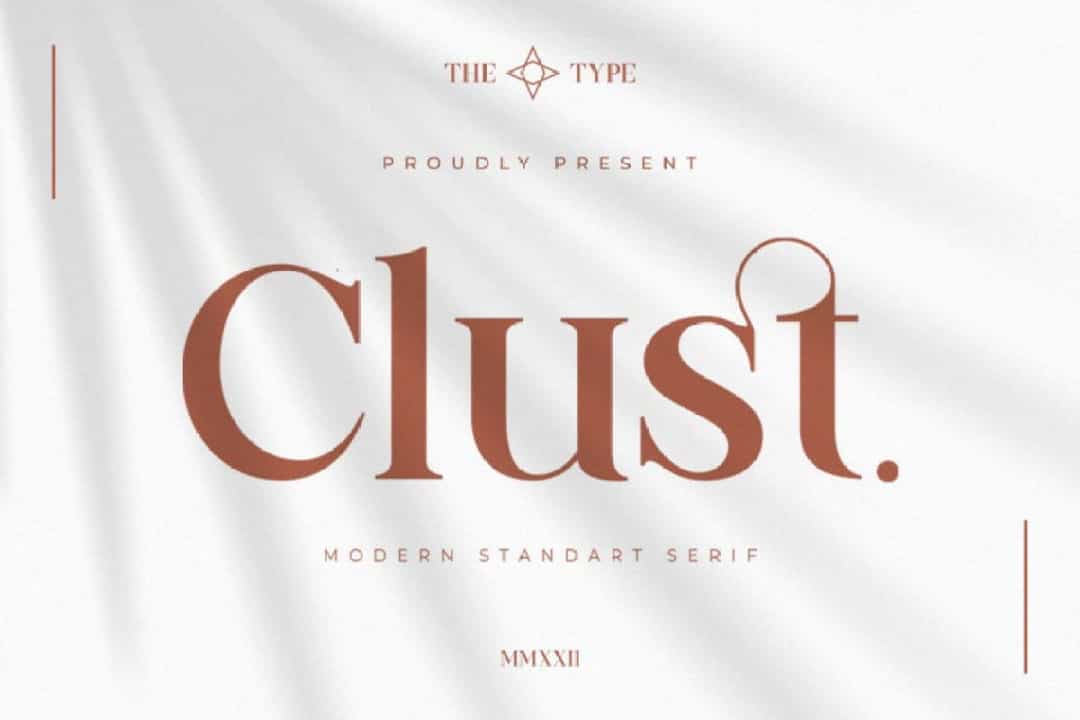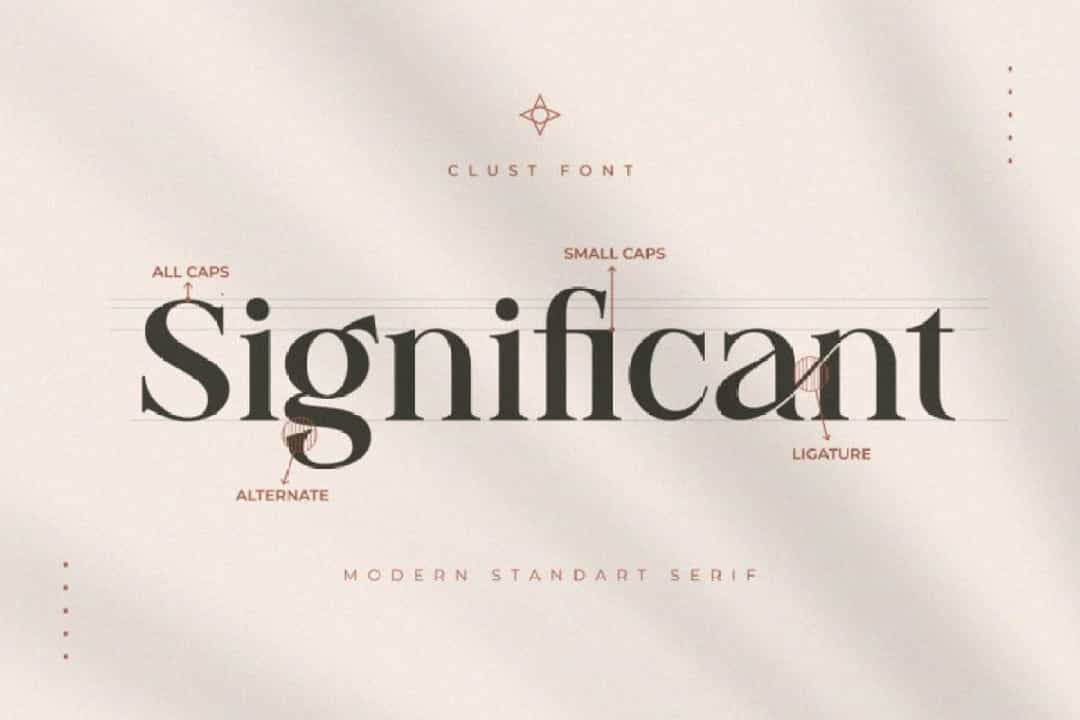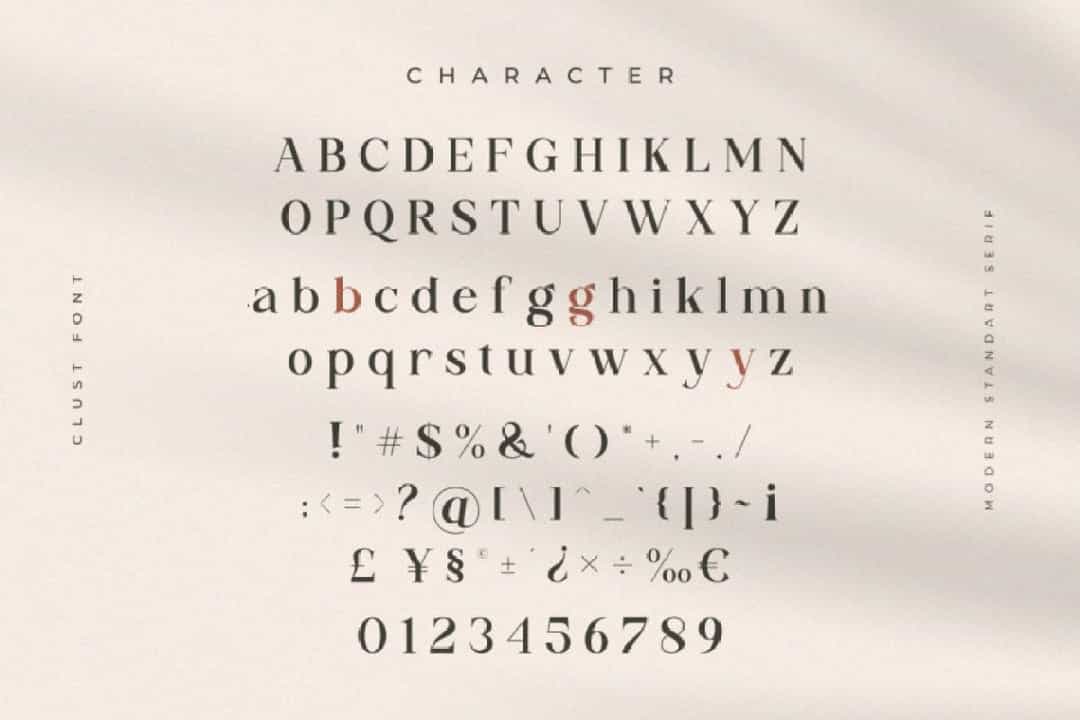
Clust is a modern standard serif font with elegance and luxury inspiration. This font appears to be a traditional/ classic serif which is good for the content portion of the design. It also can be more expressible, charming, and contemporary with additional characters and ligatures – try to use them and you will add the individuality in your work.